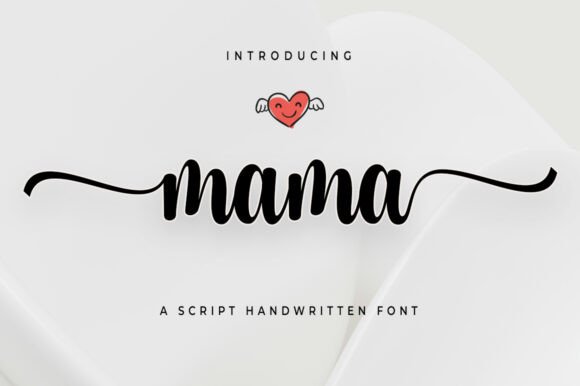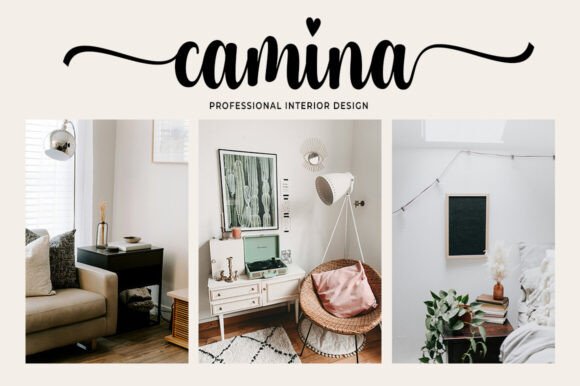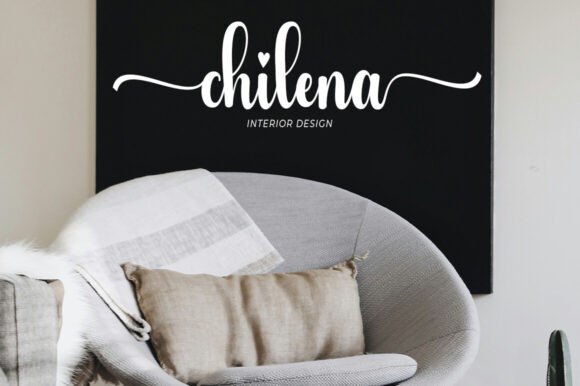
Mama Font
About the Mama Font
The wait is over! The incredible Mama Font is now available for your design toolkit. Mama is a delicate handwritten font carefully crafted for a cool and unique design. This font can be used to write letters, invitations, food products, titles, and more.
Mama Font’s delicate, handwritten style excels in applications requiring a touch of personal warmth. It’s ideal for branding projects emphasizing handcrafted quality, invitations, short text on packaging, and social media graphics where a friendly, approachable feel is desired. However, its low x-height and varying stroke weights make it unsuitable for body text or UI elements where readability is paramount.
Pairing Mama Font effectively requires considering its informal, friendly personality. A clean sans-serif like Lato or Open Sans would create a strong contrast, balancing its hand-drawn charm with modern clarity. For a more luxurious feel, consider pairing it with a classic serif such as Garamond or Playfair Display.
Its core personality is best described as friendly and approachable, conveying a sense of handmade charm and gentle sophistication. Avoid using it in projects that require a formal or strictly professional tone.
Mama Font Usage Examples
Mama Font Example